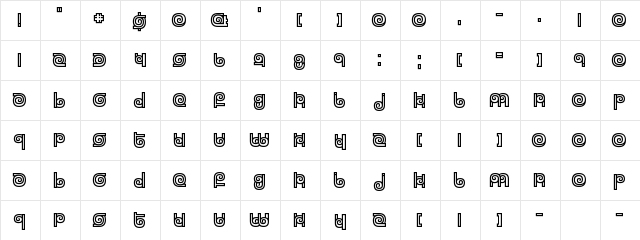
Twizzled Regular
Design Context for Twizzled Typeface
Twizzled is a composed and adaptable typeface that performs quietly and consistently across a wide range of design contexts.